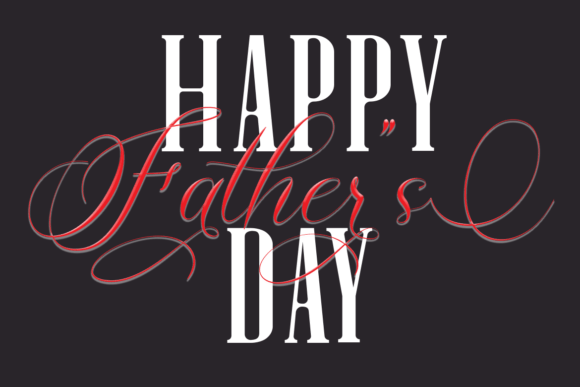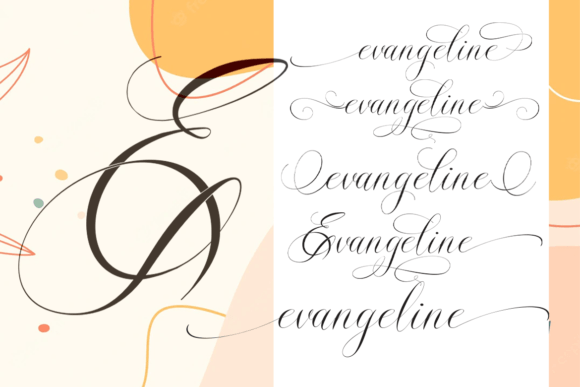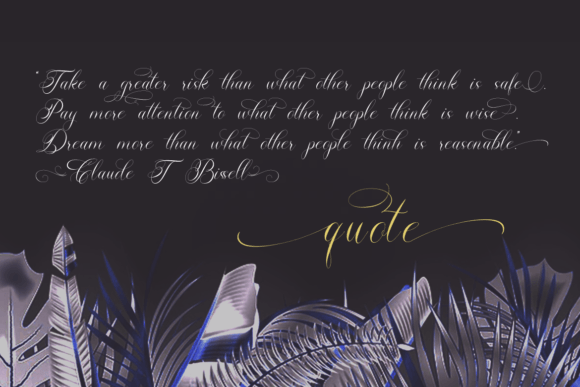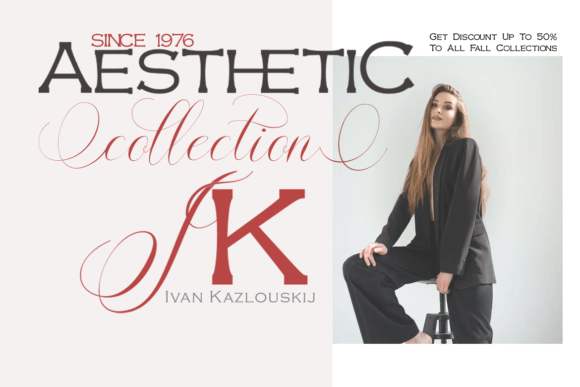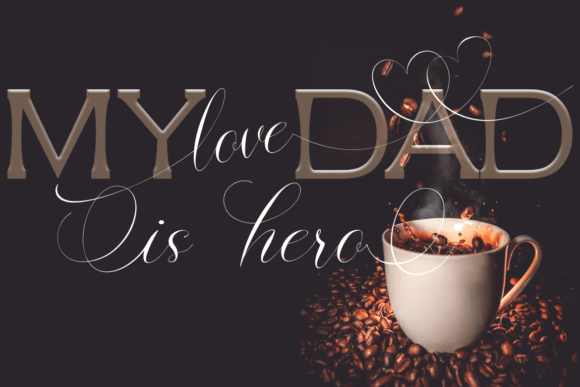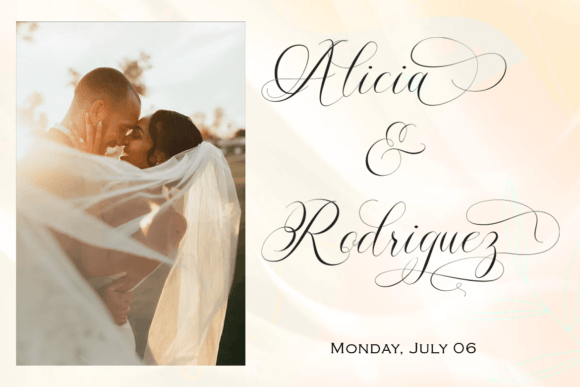
Introducing Dealova Font: The Ultimate Script Font for Stunning Designs
Are you a designer or crafter looking for a font that can elevate your designs to the next level? Look no further than Dealova Font, a sleek, modern, and graceful script font that is sure to capture your heart. With its ravishing style and versatility, Dealova is the perfect choice for creating beautiful designs that stand out from the crowd.
What Makes Dealova Font So Special?
Dealova Font is a masterpiece of typography, boasting a beautiful and well-balanced character that makes it easy to pair with a wide range of designs. Whether you’re working on a romantic wedding invitation, a stylish logo, or a trendy social media post, Dealova’s elegant style is sure to impress. Its modern and graceful appearance makes it perfect for designers and crafters who want to add a touch of sophistication to their work.
Key Features of Dealova Font
- PUA Encoded: Dealova Font is PUA (Private Use Area) encoded, which means you can access all the glyphs and sweeps easily. This feature makes it simple to use and customize the font to suit your design needs.
- Beautifully Crafted: Dealova Font is meticulously crafted to ensure that every letter and character is perfect. The font’s beautiful and well-balanced character makes it a joy to use.
- Versatile: Dealova Font is incredibly versatile and can be used for a wide range of designs, from romantic and elegant to modern and trendy.
Why Choose Dealova Font?
There are many script fonts available, but Dealova Font stands out from the rest. Here are just a few reasons why:
- Unique Style: Dealova Font has a unique and ravishing style that is sure to capture attention. Its modern and graceful appearance makes it perfect for designers and crafters who want to create stunning designs.
- Ease of Use: Dealova Font is easy to use and customize, thanks to its PUA encoding. This feature makes it simple to access all the glyphs and sweeps, allowing you to focus on creating beautiful designs.
- High-Quality: Dealova Font is a high-quality font that is meticulously crafted to ensure that every letter and character is perfect.
Dealova Font is a stunning script font that is sure to elevate your designs to the next level. With its sleek, modern, and graceful style, Dealova is perfect for designers and crafters who want to create beautiful designs that stand out from the crowd. Its PUA encoding makes it easy to use and customize, and its high-quality craftsmanship ensures that every letter and character is perfect. So why wait? Fall in love with Dealova Font and start creating stunning designs today!
- Pair with Other Fonts: Dealova Font pairs well with a wide range of fonts, so feel free to experiment and find the perfect combination for your design.